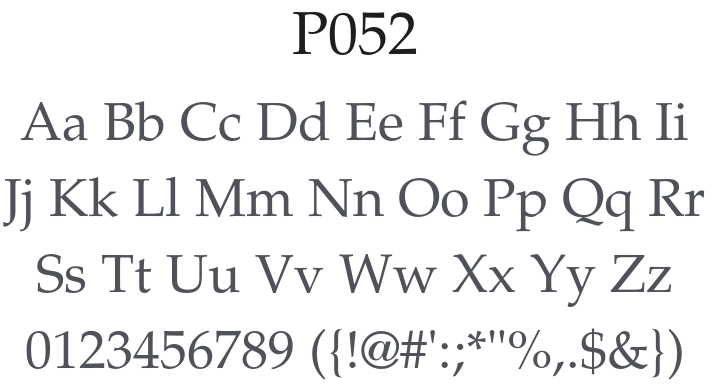
P052 Font Family
by URW++
About P052
P052 is a serif typeface from URW++ and part of the URW Base35 open-source font package — a collection of 35 metrically compatible alternatives to the PostScript Level 2 core fonts. Designed as a free equivalent of Palatino, P052 carries the same classical proportions, humanist stroke contrast, and refined elegance that make it an excellent choice for book typography, editorial design, and long-form reading.